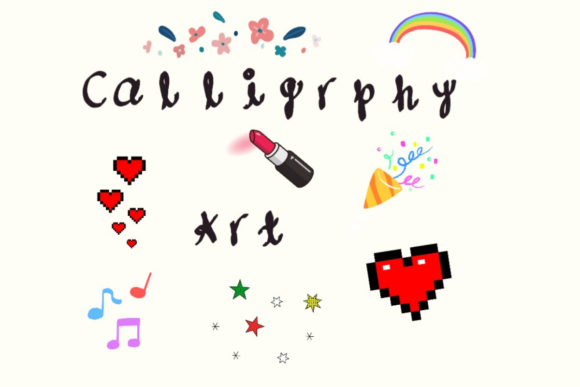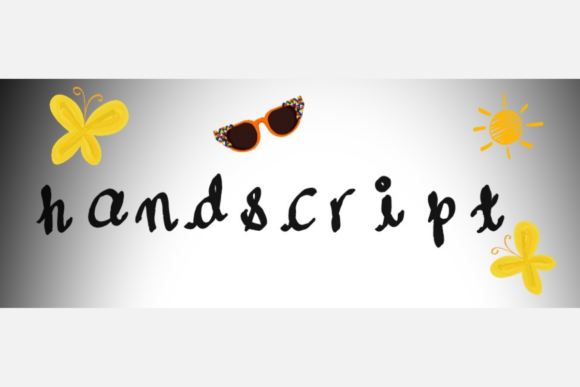
Unlock the Power of Hope Font in Your Next Creative Project
Have you ever stared at a blank page, waiting for inspiration to strike? The cursor blinks, and you feel a mix of excitement and anxiety. It’s in these moments that we turn to our trusty fonts, hoping to spark a creative breakthrough. For designers, the right font can be the difference between a mediocre design and a showstopper.
That’s where Hope Font comes in – a chic and trendy handwritten font that’s perfect for branding projects, from logos to t-shirt printing, and everything in between. With its unique charm and versatility, Hope Font is a valuable addition to any designer’s toolkit. Whether you’re working on a personal project or a client’s branding campaign, this font is sure to bring a touch of elegance and sophistication to your designs.
Hope Font Key Features
- Size: The font family consists of 12 styles, ranging from Thin to Black, with each style available in multiple weights and widths.
- Unique Characteristics: Hope Font features a unique blend of modern and traditional typography, with subtle nuances that evoke a sense of optimism and hope.
- Scalability: Hope Font is designed to be highly scalable, ensuring that it remains legible and clear at both small and large font sizes.
Hope Font Review
As a designer, I was excited to dive into the Hope Font and see what it had to offer. Overall, I was pleased with the results, but as with any font, there are some pros and cons.
- Unique Character Set: The Hope Font has a unique and quirky character set that can add a lot of personality to your designs.
- Good for Body Text**: The font is clear and easy to read, making it a great choice for body text in your designs.
- Stylish Headings**: The font has some really stylish heading styles that can add a lot of flair to your designs.
- Limited Customization Options**: The font doesn’t offer a lot of customization options, which can be limiting if you’re trying to create a specific look.
- Not Ideal for Titles**: While the font has some stylish heading styles, it’s not the best choice for titles or logos due to its limited legibility at larger sizes.
- Not Suitable for Small Text**: The font is not the best choice for small text due to its limited clarity and legibility.
The Hope Font is a solid choice for designers looking for a unique and stylish font for body text. However, it may not be the best choice for titles, logos, or small text due to its limitations. Overall, I would recommend this font for designers who want to add some personality to their designs, but may not be the best choice for every project.
Getting the Most Out of Hope Font
Here are some tips for getting the most out of the Hope Font:
- Combine the Hope Font with other fonts to create a unique and eye-catching design.
- Use the Hope Font in conjunction with bold or italic text to add emphasis.
The Hope Font is suitable for a variety of design projects, including:
Alternatives to Hope Font
Great Vibes Font is a modern, elegant script font that works well for headings and titles. It is ideal for creating a sense of sophistication and luxury in your design. Great Vibes Font is similar to Hope Font in its flowing, cursive style but has a more refined and polished look.
Carolyna Pro Font is a beautiful, high-end script font that is perfect for creating a sense of glamour and sophistication. It is ideal for use in branding, advertising, and luxury packaging. Carolyna Pro Font is more dramatic and elegant than Hope Font, making it suitable for high-end designs.